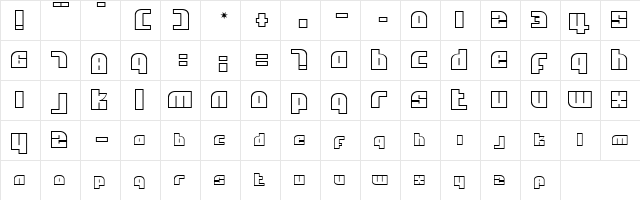
Alpha Flight Small Caps Regular
Design Context for Alpha Flight Small Caps Typeface
Alpha Flight Small Caps is a composed and adaptable typeface that performs quietly and consistently across a wide range of design contexts. The delicate stroke weight brings airiness and refinement to layouts.